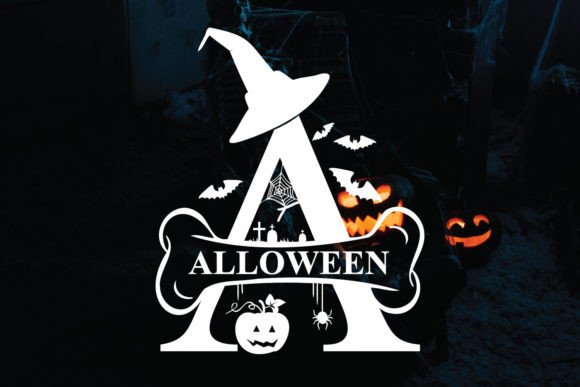
Alloween Font: The Ultimate Decorative Monogram Font for Spooky Designs
Are you looking for a font that will add a touch of spooky charm to your Halloween designs, shirts, crafts, and more? Look no further than Alloween Font, a cute decorative monogram font that’s perfect for the spookiest time of the year. In this article, we’ll dive into the features and benefits of Alloween Font, and explore how it can instantly enhance your projects.
What is Alloween Font?
Alloween Font is a decorative monogram font designed specifically for Halloween-themed designs. Its unique and playful style makes it perfect for creating spooky yet adorable designs that will stand out from the crowd. The font features intricate details and a distinctive look that will add a touch of personality to any project.
Features of Alloween Font
- Cute and Decorative: Alloween Font is a decorative monogram font that’s designed to be cute and playful, making it perfect for Halloween designs.
- Monogram Style: The font features a monogram style that’s perfect for creating personalized designs, such as shirts, crafts, and more.
- Instantly Enhances Projects: With Alloween Font, you can instantly add a touch of spooky charm to your projects, making them stand out from the crowd.
- Versatile: The font can be used for a variety of projects, including Halloween designs, shirts, crafts, and more.
Benefits of Using Alloween Font
Using Alloween Font can bring a range of benefits to your projects. Here are just a few:
- Unique and Eye-Catching: Alloween Font is a unique and eye-catching font that will add a touch of personality to any project.
- High-Quality: Alloween Font is a high-quality font that’s designed to produce crisp and clear results, even at small sizes.
Tips and Tricks for Using Alloween Font
Here are some tips and tricks for getting the most out of Alloween Font:
- Experiment with Sizes: Experiment with different font sizes to create a unique and eye-catching design.
- Combine with Other Fonts: Combine Alloween Font with other fonts to create a unique and interesting design.
- Use in Combination with Images: Use Alloween Font in combination with images, such as Halloween-themed graphics or photos, to create a spooky and eye-catching design.
- Make it 3D: Use Alloween Font to create 3D designs, such as signs or posters, for a unique and eye-catching effect.